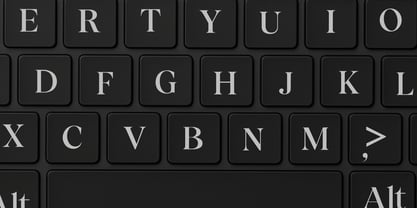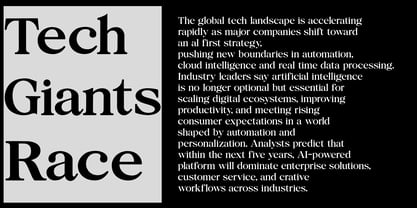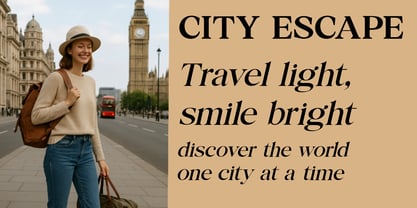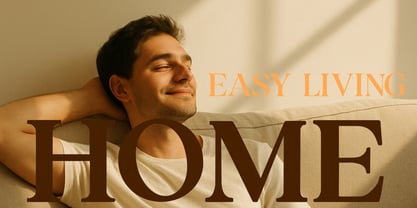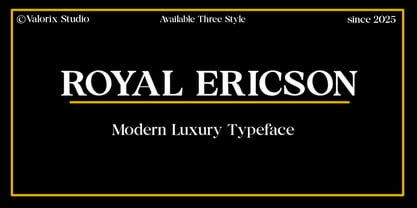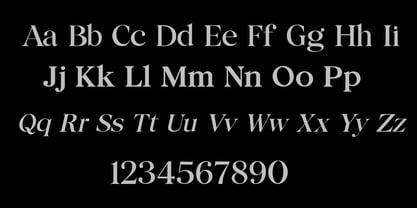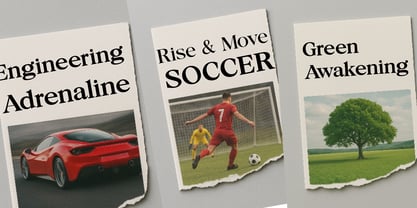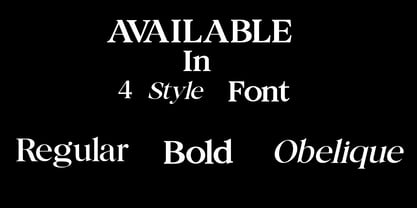
Royal Ericson
by Valorix Studio
The Royal Ericson Font Family was designed by Erick Rismawan Valorix and published by Valorix Studio. Royal Ericson contains 4 styles and family package options. More about this family
Royal Ericson — A Modern Serif with Royal Confidence Royal Ericson is a modern serif typeface that blends timeless classic charm with a refined contemporary spirit. Designed with balanced contrast, clean geometry, and sharp yet smooth serif details, Royal Ericson delivers a luxurious, authoritative, and professional tone to every composition. Created for premium branding, editorial layouts, corporate identity, packaging, and digital modern designs, this font brings sophistication without feeling old-fashioned — perfect for brands that want to appear intelligent, confident, and prestigious. Key Features Elegant, strong, and professional aesthetics Refined serifs with modern touches Editorial & luxury personality Smooth curves combined with firm structure Balanced contrast for excellent readability How Royal Ericson Stands Out From Other Serifs Classic–modern balance: Not as traditional as Times New Roman, yet not as experimental as fashion display serifs — Royal Ericson sits in the sweet spot of refined versatility. Stronger, more masculine character: Compared to many soft modern serifs, Royal Ericson delivers a firm, confident presence. Clean & symmetrical serif style: Offers clarity and structure compared to more expressive or organic serif shapes. Optimized for digital & print: Carefully crafted proportions ensure sharp performance across editorial layouts, branding, websites, and digital screens. Perfect for Logos & Brand Identity Editorial & Magazine Design Packaging & Luxury Branding Posters & Display Headlines Websites & Social Media Visuals Give your designs a royal touch. Royal Ericson brings strength, elegance, and lasting class — a serif built for brands that lead.